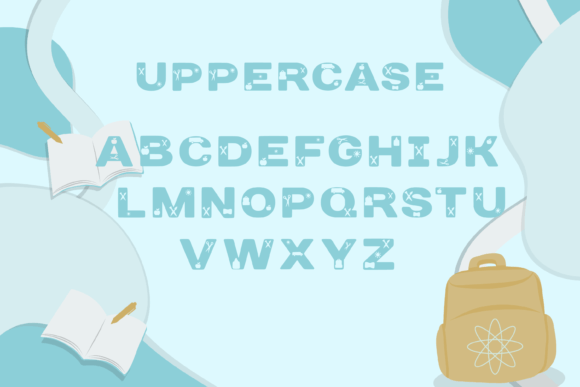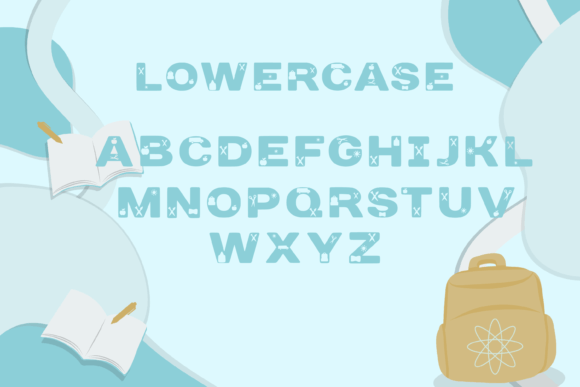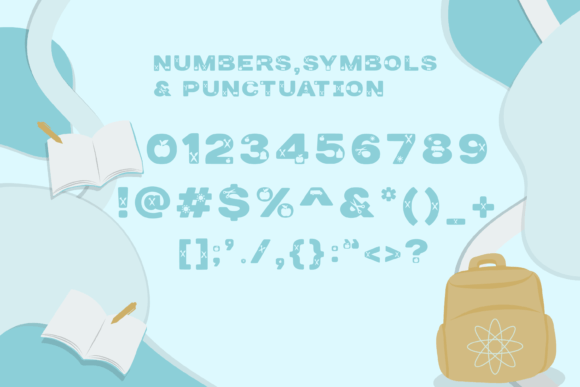
Back to School Font: The Perfect Choice for Your Creative Projects
As the new school year approaches, designers and crafters are on the lookout for fresh and exciting fonts to make their projects stand out. If you’re looking for a font that embodies playfulness and authenticity, look no further than the Back to School Font. This cute and fun decorative display font is perfect for a variety of projects, from blog posts and logos to branding, ads, invitations, greeting cards, planners, photo albums, decorations, and more.
What Makes Back to School Font So Special?
The Back to School Font is designed to capture the essence of the back-to-school season. Its playful and fun design makes it perfect for projects that require a touch of whimsy and creativity. Whether you’re a designer looking to create eye-catching graphics or a crafter looking to add a personal touch to your DIY projects, this font is sure to inspire.
Key Features of Back to School Font
- Playful Design: The Back to School Font features a playful design that’s perfect for creating fun and engaging projects.
- Decorative Display Font: This font is designed to make a statement, making it perfect for headings, titles, and other display text.
- Authentic Feel: The font’s authentic feel makes it perfect for projects that require a personal touch.
- Versatile: The Back to School Font can be used for a wide range of projects, from digital to print.
Uses for Back to School Font
The Back to School Font is a versatile font that can be used for a variety of projects, including:
- Blog Posts: Add a touch of whimsy to your blog posts with this fun and playful font.
- Logos and Branding: Create eye-catching logos and branding materials that stand out from the crowd.
- Ads: Use the Back to School Font to create attention-grabbing ads that drive results.
- Invitations and Greeting Cards: Add a personal touch to your invitations and greeting cards with this beautiful font.
- Planners and Photo Albums: Create beautiful planners and photo albums that showcase your creativity.
- Decorations: Use the Back to School Font to create eye-catching decorations for your home or office.
Tips for Using Back to School Font
Here are some tips for using the Back to School Font in your projects:
- Experiment with Different Sizes: Play around with different font sizes to create visual interest and hierarchy.
- Pair with Other Fonts: Pair the Back to School Font with other fonts to create a unique and eye-catching combination.
- Use for Headings: Use the font for headings and titles to create a bold and eye-catching statement.
- Add a Personal Touch: Use the font to add a personal touch to your projects, such as in journaling or scrapbooking.
| Font Name | Back to School Font |
| Author | Andreea Eremia Design |
The Back to School Font is a versatile and fun font that’s perfect for designers and crafters looking to add a touch of whimsy to their projects. With its playful design, authentic feel, and versatility, this font is sure to inspire creativity and make your projects stand out. Whether you’re creating blog posts, logos, ads, invitations, or decorations, the Back to School Font is the perfect choice.